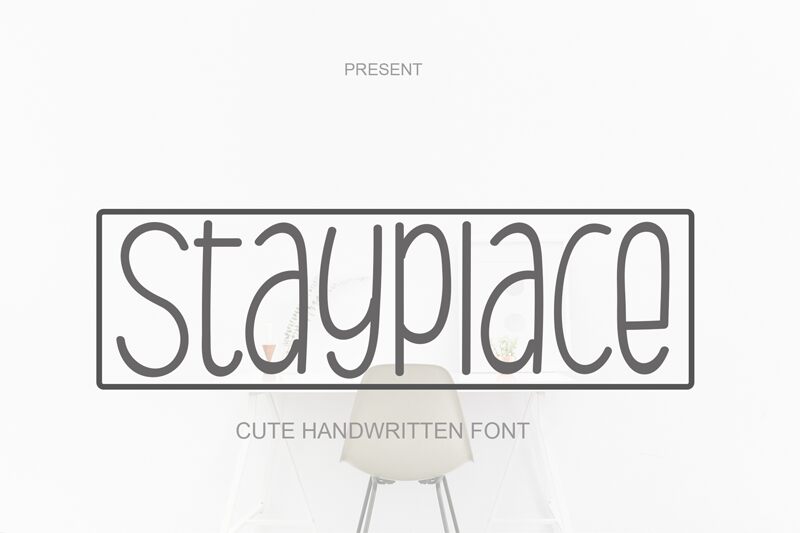
Stayplace font by creatype designer is a free-spirited handwritten typeface that embraces a laid-back and whimsical feel. Its friendly and approachable design resonates with a contemporary audience, making it ideal for vibrant, modern projects. Smooth lines and informal strokes combine to form a relaxed aesthetic, capturing the spirit of casual communication.
Its gentle flow makes Stayplace suitable for greeting cards, wedding invitations, social media graphics, branding logos, book covers, posters, and more. Use it to bring a personal touch to product packaging like notebooks, T-shirt designs, café menus, or website headlines.
This font retains a classy calligraphic influence while feeling contemporary and fresh. Its versatility will inspire a wide range of creative projects, from letterheads and titles to stationery.